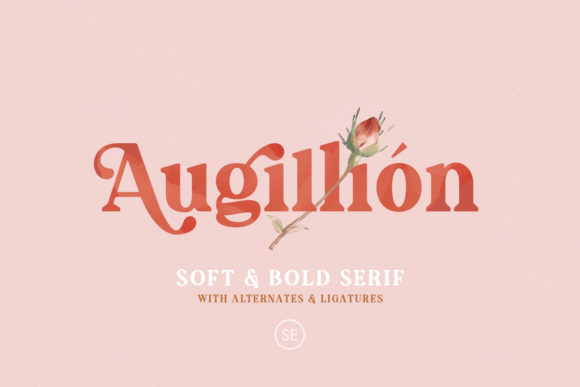
First Impressions: A Modern Elegance
Augillion Font is a modern and elegant serif font that has quickly become a staple in my design toolkit. Its versatility is impressive, making it suitable for a wide range of projects. From high-end branding to creative crafts, Augillion brings a touch of sophistication that elevates any design.
- ✅ Elegant and refined design that’s perfect for luxury brands
- ✨ Highly legible, even at small font sizes
- 💻 Works seamlessly across digital and print platforms
- 🎨 Supports a wide range of languages and OpenType features
While Augillion is an excellent font, there are a few minor considerations to keep in mind. 🤔
- ⚠️ Some users may find the font’s elegance too refined for very casual or playful projects
- ⚠️ Limited availability of certain stylistic alternates, which might require additional design work
The Story Behind Augillion
Augillion was designed with the goal of creating a modern, elegant serif font that could be used across a wide range of projects. Inspired by classic typography and modern design trends, Augillion’s creator aimed to produce a font that was both refined and versatile.
Q: What makes Augillion suitable for luxury brands?
A: Augillion’s elegant and refined design, combined with its high legibility, make it an excellent choice for luxury brands looking for a sophisticated font.
Q: Can I use Augillion for digital projects?
A: Yes, Augillion works seamlessly across digital and print platforms, making it a great choice for websites, social media, and more.
Q: Does Augillion support OpenType features?
A: Yes, Augillion supports a range of OpenType features, including ligatures and stylistic alternates, allowing for added depth and customization in your designs.
Q: Is Augillion suitable for body text?
A: While Augillion is elegant and refined, it can be used for body text, especially in larger font sizes. However, for very long texts, a more traditional serif font might be more suitable.